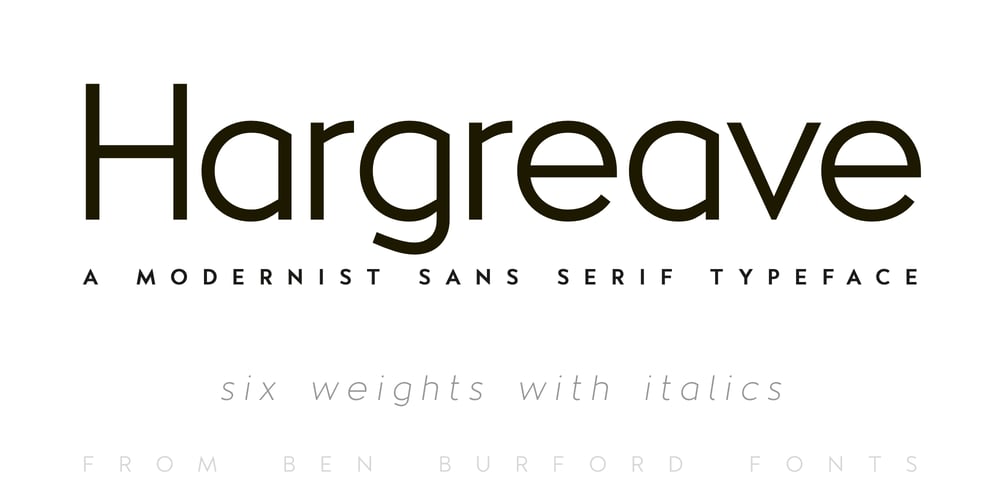
Hargreave Font Family was designed by Ben Burford and published by Ben Burford Fonts. Hargreave contains 12 styles and family package options. Hargreave is a Modernist Sans Serif Typeface that gives a nod to early 20th century design giving it a ‘Modern Deco’ feel. This gives it a lot of scope for any design project